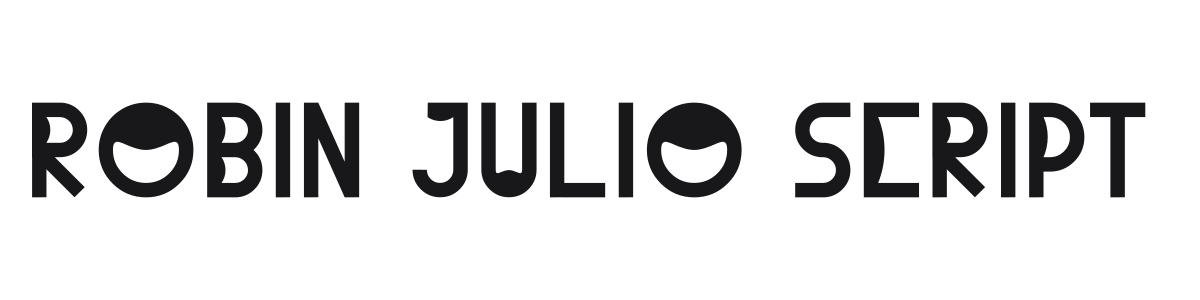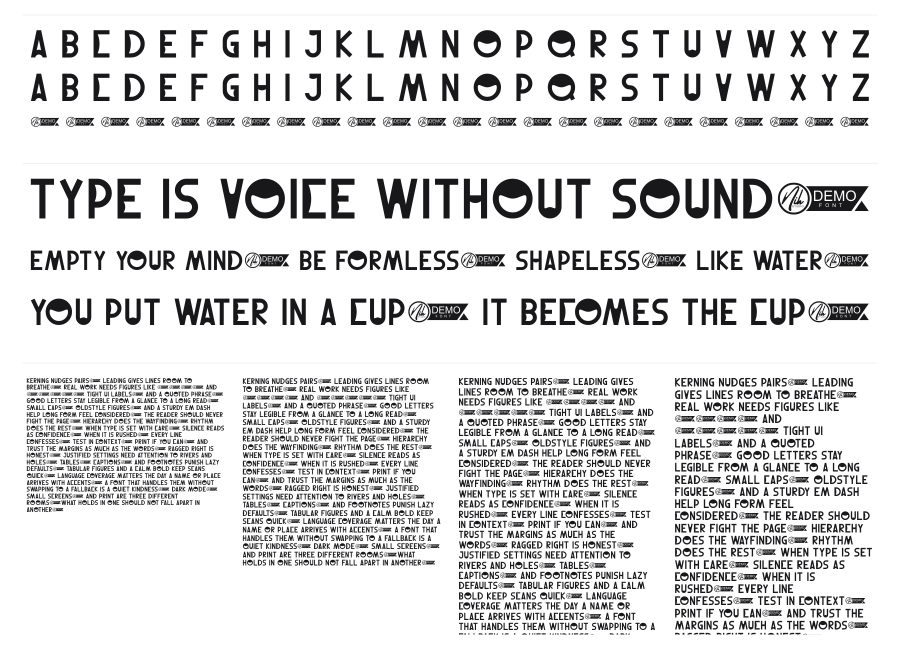
Robin Julio Script
Robin Julio Script is a bold novelty display font that sneaks expressive details into an otherwise sturdy sans-serif framework. Circular cutouts and smiley-face forms embedded in select characters give it a distinct personality without overwhelming legibility at headline sizes. It sits comfortably in playful branding, event posters, and anywhere a design needs a touch of visual humor.